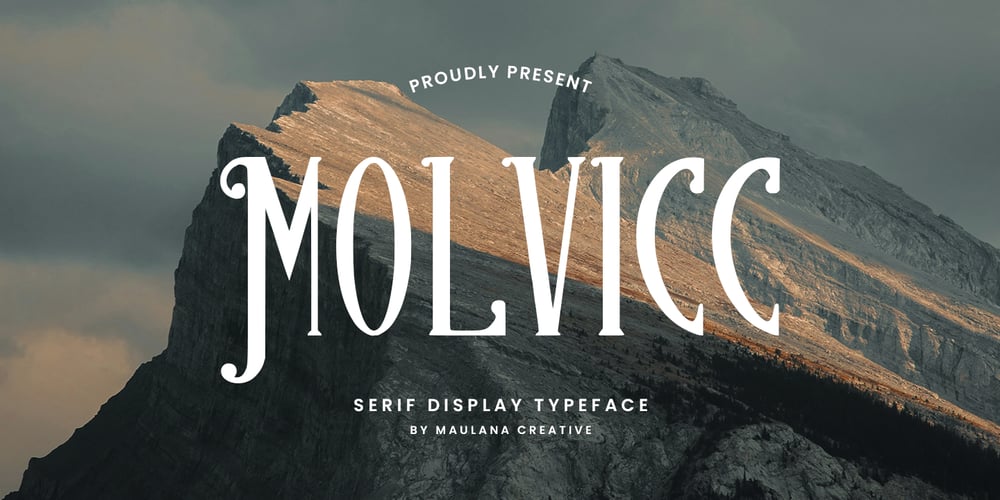
MC Molvicc Font Family was designed by Gilang Maulana and published by Maulana Creative. MC Molvicc contains 1 styles and family package options. Molvicc is a serif display font. With bold tall and sharp stroke, fun character with a bit of ligatures and alternates. To give you an extra creative work. Molvicc font support multilingual more than 100+ language. This font is good for logo design, Social media, Movie Titles, Books Titles, a short text even a long text letter and good for your secondary text font with sans or serif. Make a stunning work with Molvicc font.Cheers,Maulana Creative